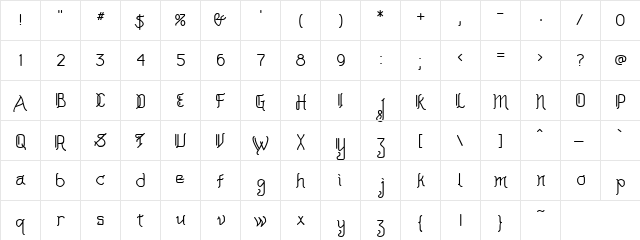
Wire Dance Regular
Design Context for Wire Dance Typeface
Wire Dance is a composed and adaptable typeface that performs quietly and consistently across a wide range of design contexts.